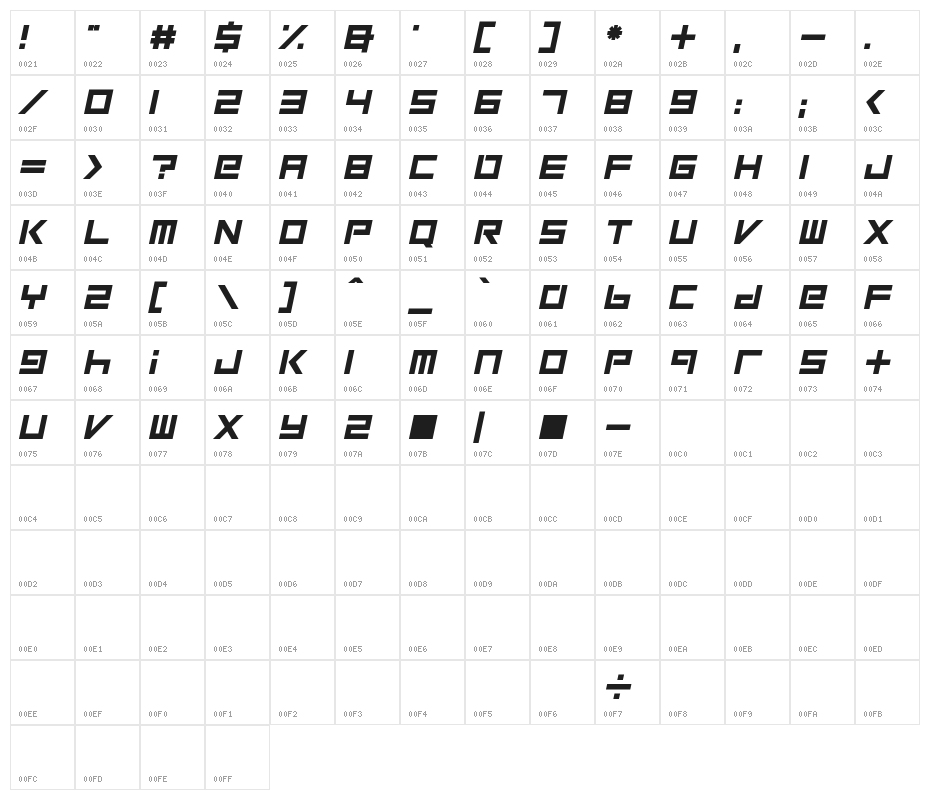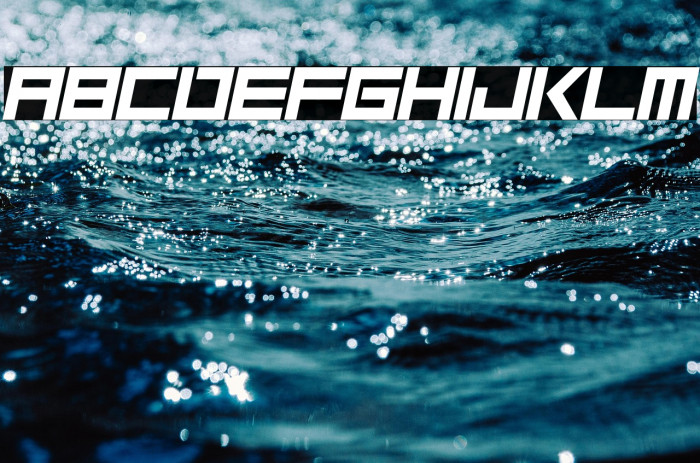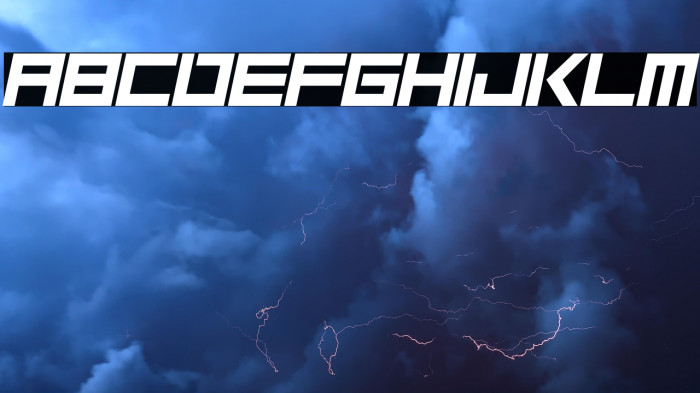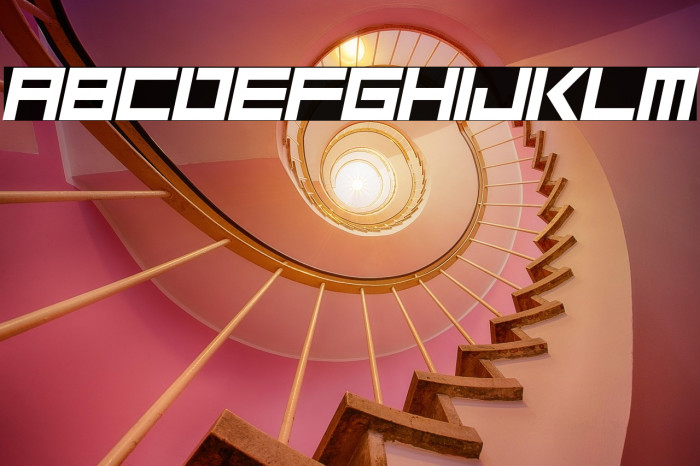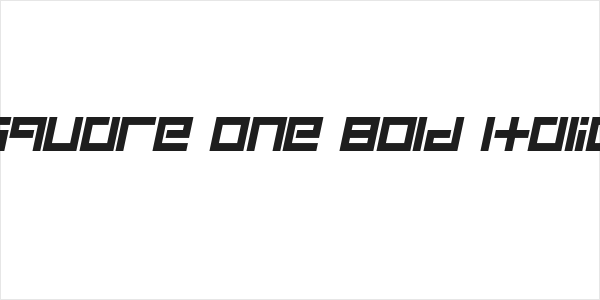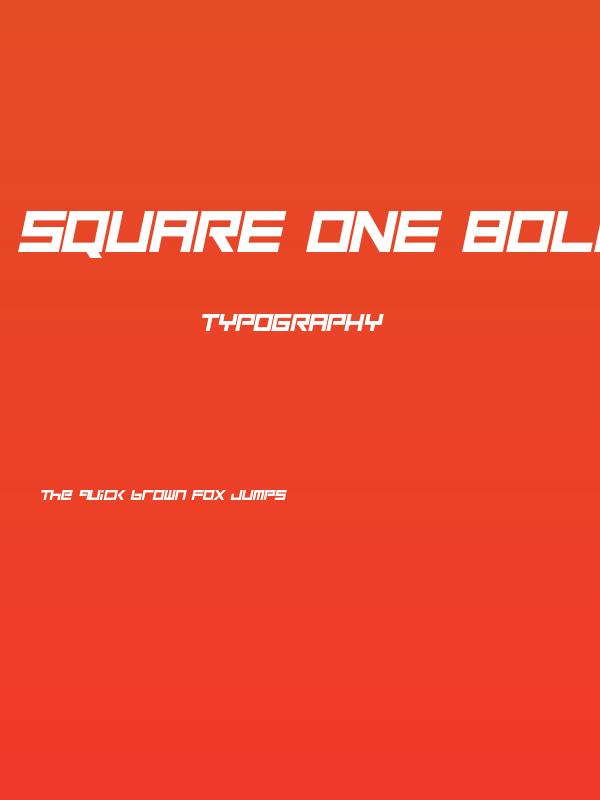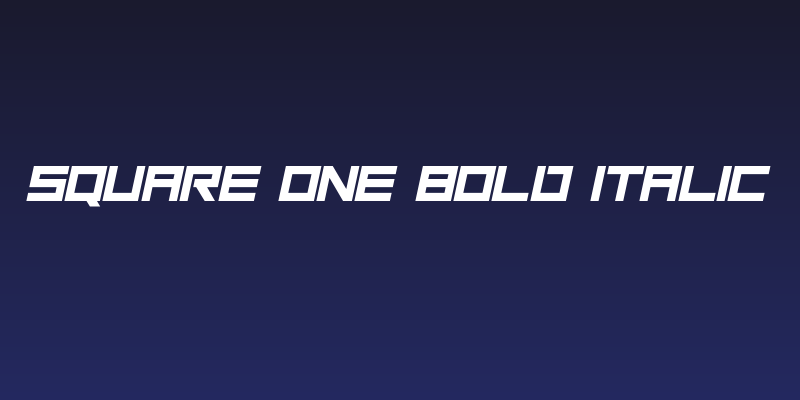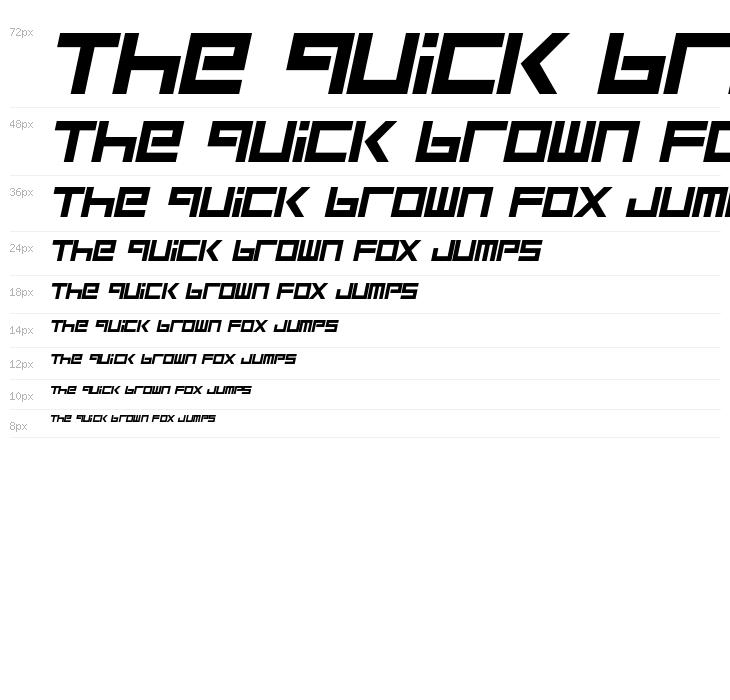
Square One Bold Italic Font
Square One Bold Italic Description
This font features a bold and italicized style with a futuristic and geometric design. The characters are constructed with sharp angles and straight lines, giving them a dynamic and modern appearance. The uppercase and lowercase letters maintain a consistent width, enhancing readability while retaining a unique aesthetic. The numbers and special characters follow the same design principles, ensuring uniformity across all glyphs. This font's boldness and slant make it ideal for attention-grabbing headlines or titles.
| Proposed Projects | Ideal for sci-fi themed projects, technology branding, video game titles, and modern poster designs. |